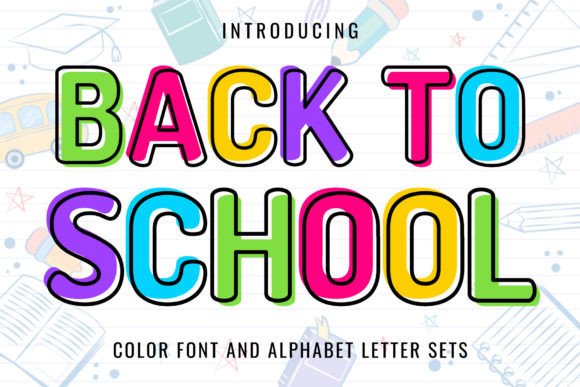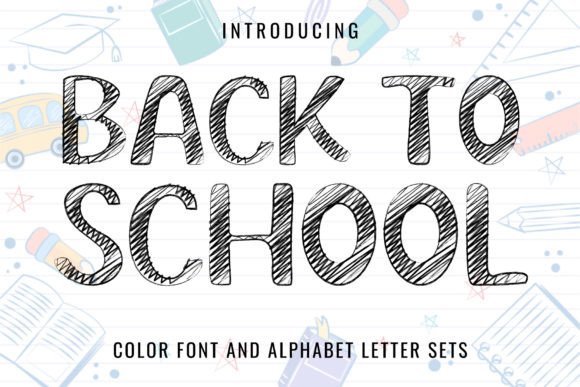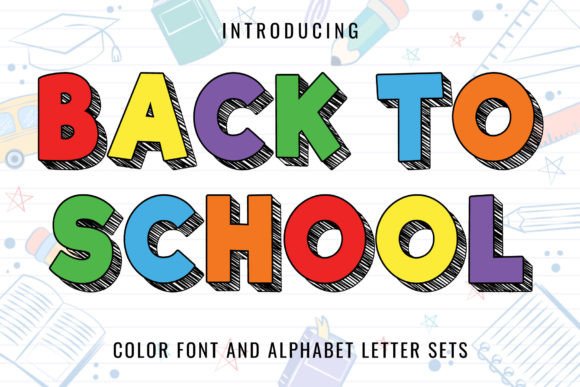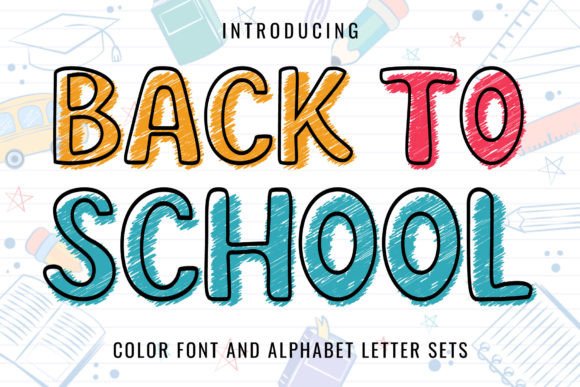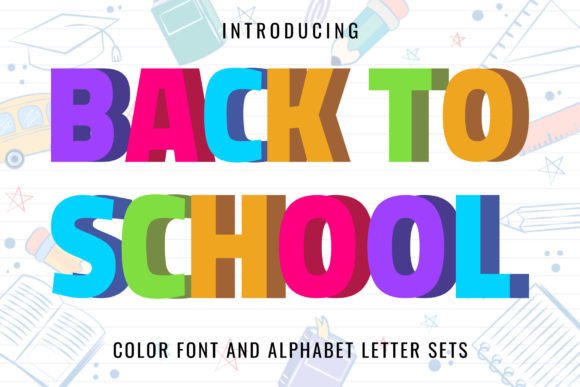
Get Ready for a Fun and Creative Back to School Season!
It’s that time of the year again when creativity flows and imagination runs wild – back to school season is just around the corner! If you’re a designer, crafter, or simply a lover of all things fun and colorful, you’re probably itching to dive into some exciting projects. Whether you’re creating personalized school supplies, designing party invitations, or making customized gifts for the kids, the right font can make all the difference.
That’s where the Back to School Collection Font comes in – a delightful and playful font collection that’s sure to bring a smile to your face. This fantastic collection features 26 fonts from 8 typefaces, making it the perfect addition to your design arsenal. With its versatility and endless possibilities, the Back to School Collection Font is a valuable resource for any designer looking to add some fun and creativity to their projects.
Key Features of “Back to School Collection Font”
- Unique Character Set: The font includes a wide range of characters, including letters, numbers, punctuation, and special symbols, making it ideal for various educational and creative projects.
- Font Weight: Offers a range of font weights, from Light to Bold, providing versatility in design and emphasis.
Back to School Collection Font Review
The Back to School Collection Font is a playful, energetic font that is sure to grab the attention of students and educators alike. I appreciate the attention to detail in its design, which is evident in the way the letters and numbers seem to “pop” off the page. ✨
Here are some specific things I like about the font:
- Its bold, colorful design makes it perfect for posters, flyers, and other promotional materials.
- The font is highly customizable, allowing you to adjust the size, color, and style to fit your needs.
- It’s a great choice for creating eye-catching headings and titles.
- ⚠️ The font may be too bold or overwhelming for some designs, particularly those that require a more subtle or professional look.
- ⚠️ It may not be suitable for use in formal or academic settings, such as in textbooks or academic papers.
- ⚠️ The font may be difficult to read in certain font sizes or at a distance.
Overall, I think the Back to School Collection Font is a great choice for designers who want to add a playful touch to their projects. While it may not be suitable for every design, it’s a versatile and customizable font that is sure to spark creativity and engagement.
The ‘Back to School Collection Font’ is ideal for creating designs related to education, such as:
• School posters and flyers
• Educational brochures and catalogs
• Personalized stationery and invitations
• Social media graphics and ads